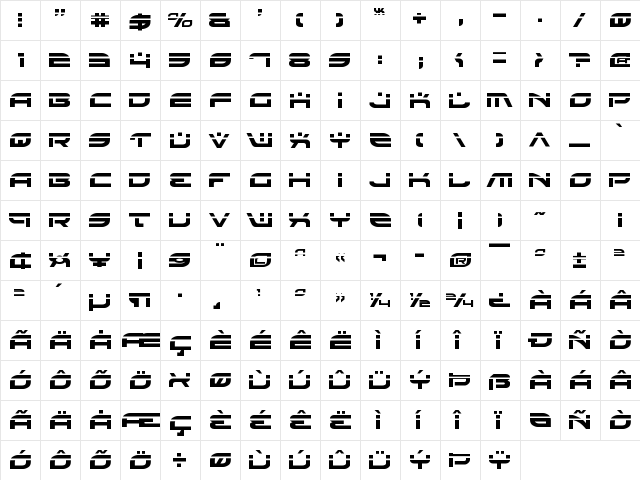
Battlefield Laser Laser Font Preview
Battlefield Laser Laser
Battlefield Laser Laser Font Details
| Style | Laser |
Design Context for Battlefield Laser Typeface
Battlefield Laser is a composed and adaptable typeface that performs quietly and consistently across a wide range of design contexts.
Pro Tip: Use Battlefield Laser in both headline and body roles to test its range before committing to a single application.